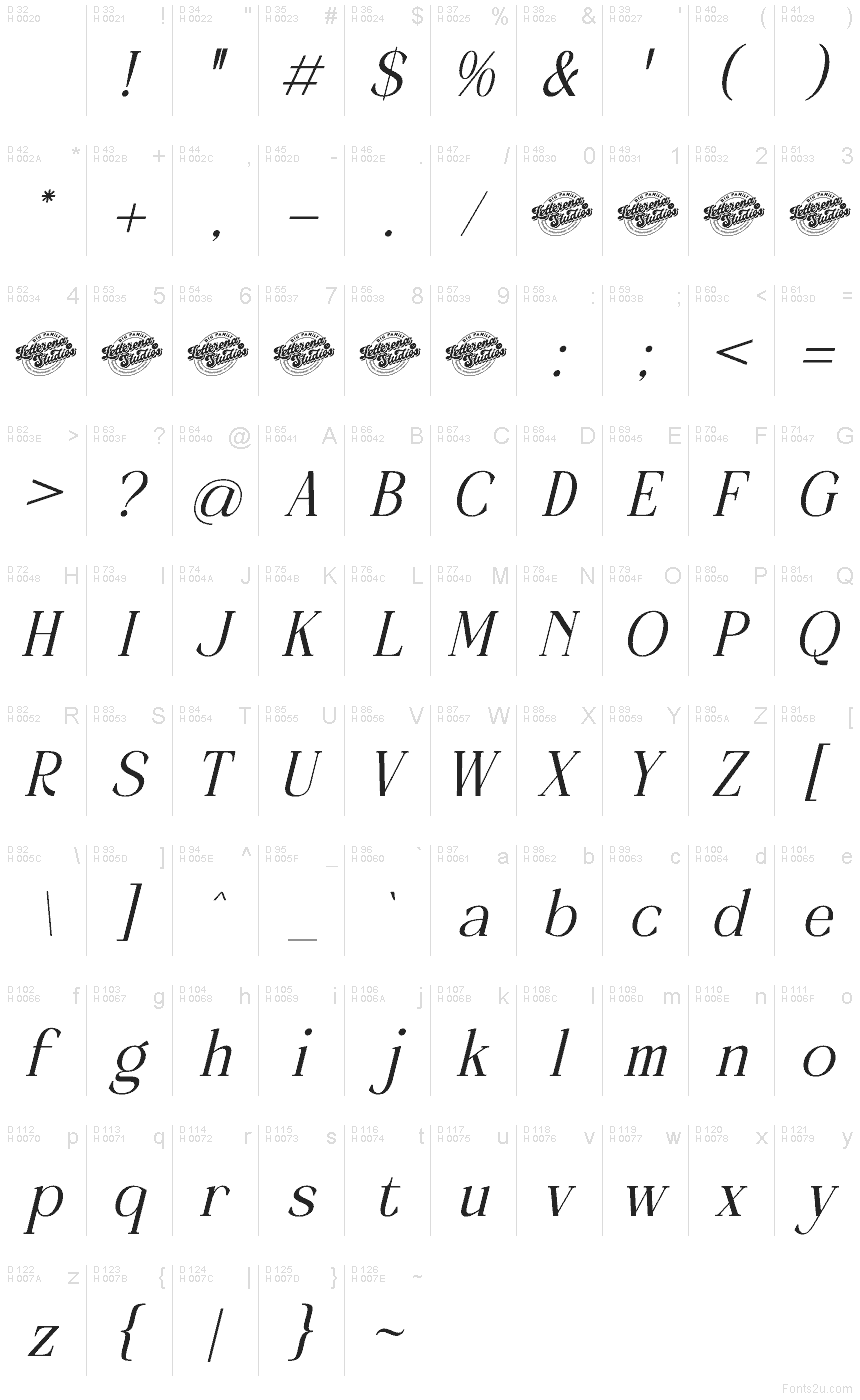
Gradeur DEMO VERSION Italic
Gradeur Italic font is a free serif typeface by Storytype Studio. Elegant, sophisticated, and classic, it carries italic characteristics which add to the style of its stunning designs. It has an instantly legible presence which provides aesthetics and balance to all projects it’s added to.
The font is suitable for being used in branding designs including logos, packs, and labels for modern fashion houses or luxury cosmetics brands. It can also be used in lifestyle magazines in both headlines and body text. Websites, formals invitations, posters, stationery items would also look great with Grauder Italic if used correctly.